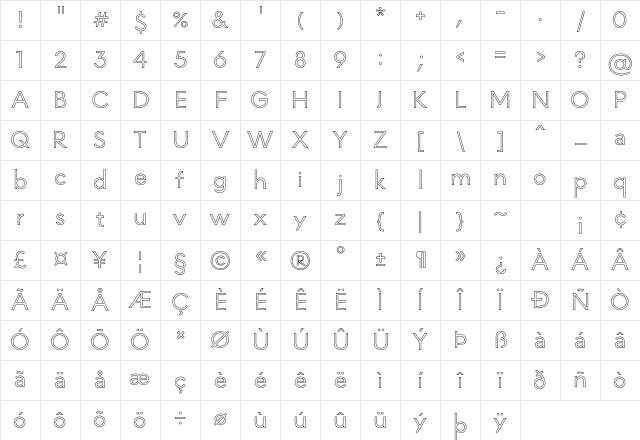
Complete MADE INFINITY Outline Personal Use Light Regular glyph index. Displaying only characters natively supported by MADE INFINITY Outline Personal Use Light Regular font.
MADE INFINITY Outline Personal Use Light is built around its visual character rather than neutral utility - its distinctive forms are designed to make an impression at display sizes. Its slender proportions lend an understated elegance to any composition.
Font Pairing: Pair with a clean neutral sans-serif for body copy to let MADE INFINITY Outline Personal Use Light's character lead without overwhelming the composition.
Pro Tip: Use MADE INFINITY Outline Personal Use Light exclusively at display sizes - it was designed to be seen, not read at length. Let a neutral companion handle body copy.